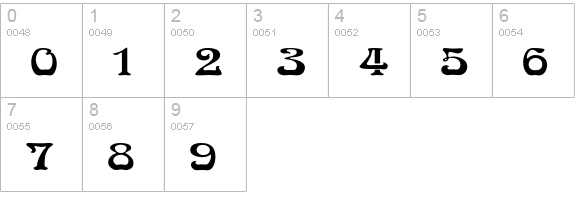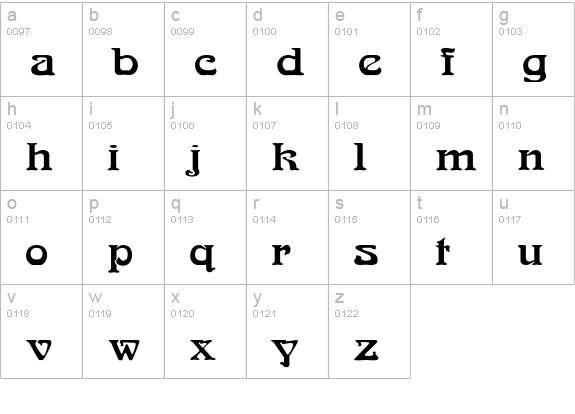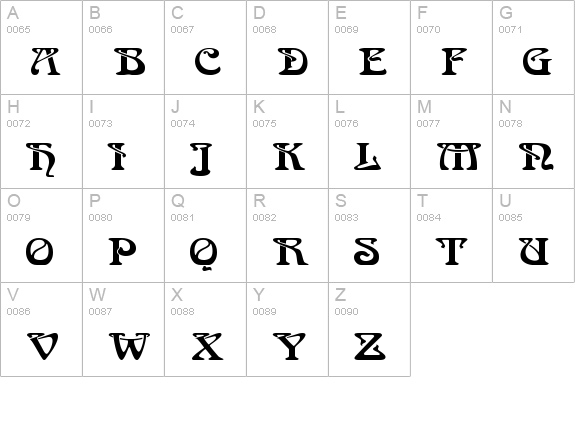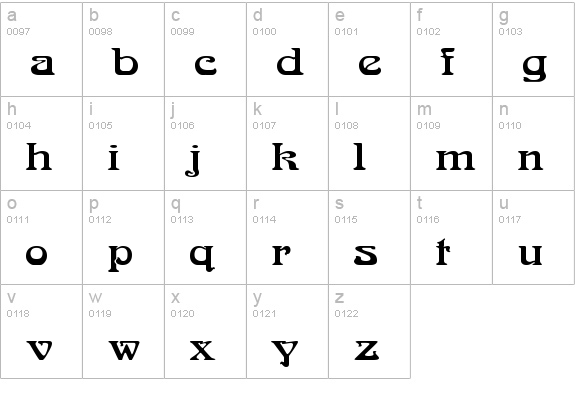
Medusa Font Details
The Medusa font is a captivating and versatile typeface that draws inspiration from ancient Greek mythology. With its intricate and elegant design, Medusa exudes a sense of mystery and sophistication that will elevate any project it is used in. The font features beautifully crafted letterforms that are both modern and timeless, making it suitable for a wide range of design applications. What sets Medusa font apart is not only its stunning aesthetics, but also the fact that it is completely free to download. You can easily access this exquisite font at FontsMarket.com, where it is available for instant download. Whether you are working on a branding project, a website design, or any other creative endeavor, Medusa font is sure to add a touch of elegance and flair. Don't miss out on this amazing opportunity to enhance your designs with the striking beauty of the Medusa font.